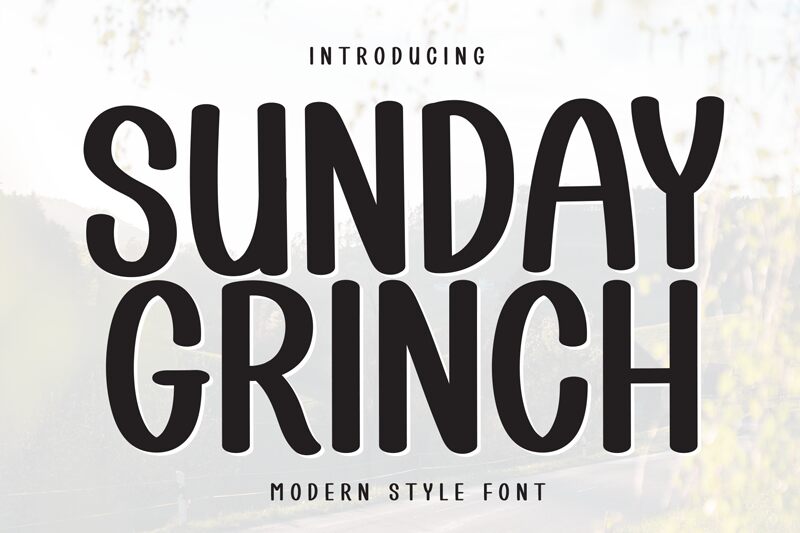
Sunday Grinch
Sunday Grinch font by Scratchones combines vintage inspiration with a bold handwritten style, offering a whimsical and quirky charm. Its eye-catching design evokes modern nostalgia, making it perfect for projects that require a unique blend of creativity and tradition.
Ideal use cases include branding, packaging design, posters, invitations, apparel design, social media graphics, web design, product labels, book covers, and advertising campaigns. This free handwritten font effortlessly adds character to any visual content.